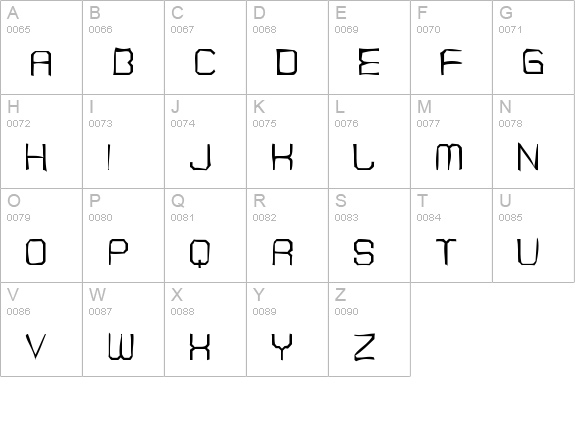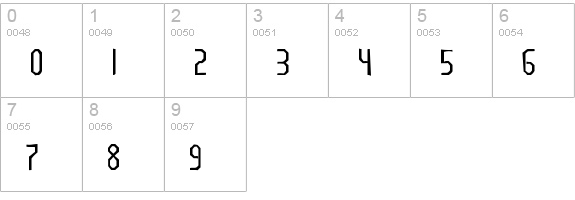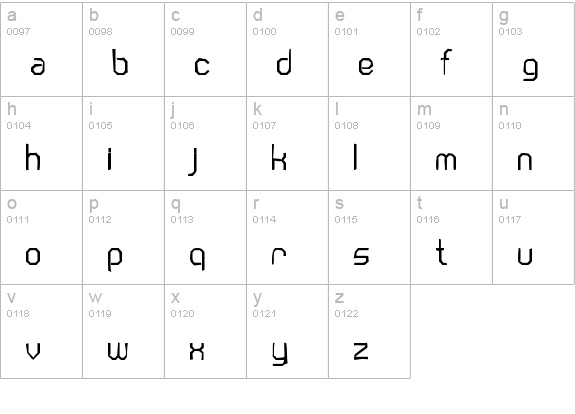
Cranberry Gin Gaunt Font Details
Introducing Cranberry Gin Gaunt font, a delicate and elegant typeface that exudes sophistication and charm. With its slender and graceful strokes, this font is perfect for adding a touch of refinement to any design project. This font features a unique blend of classic and modern elements, making it versatile for a wide range of applications. Whether you're creating wedding invitations, branding materials, or editorial designs, Cranberry Gin Gaunt font is sure to make a statement. Best of all, Cranberry Gin Gaunt font is available for free download at FontsMarket.com. So go ahead and elevate your designs with this beautiful and stylish typeface today!